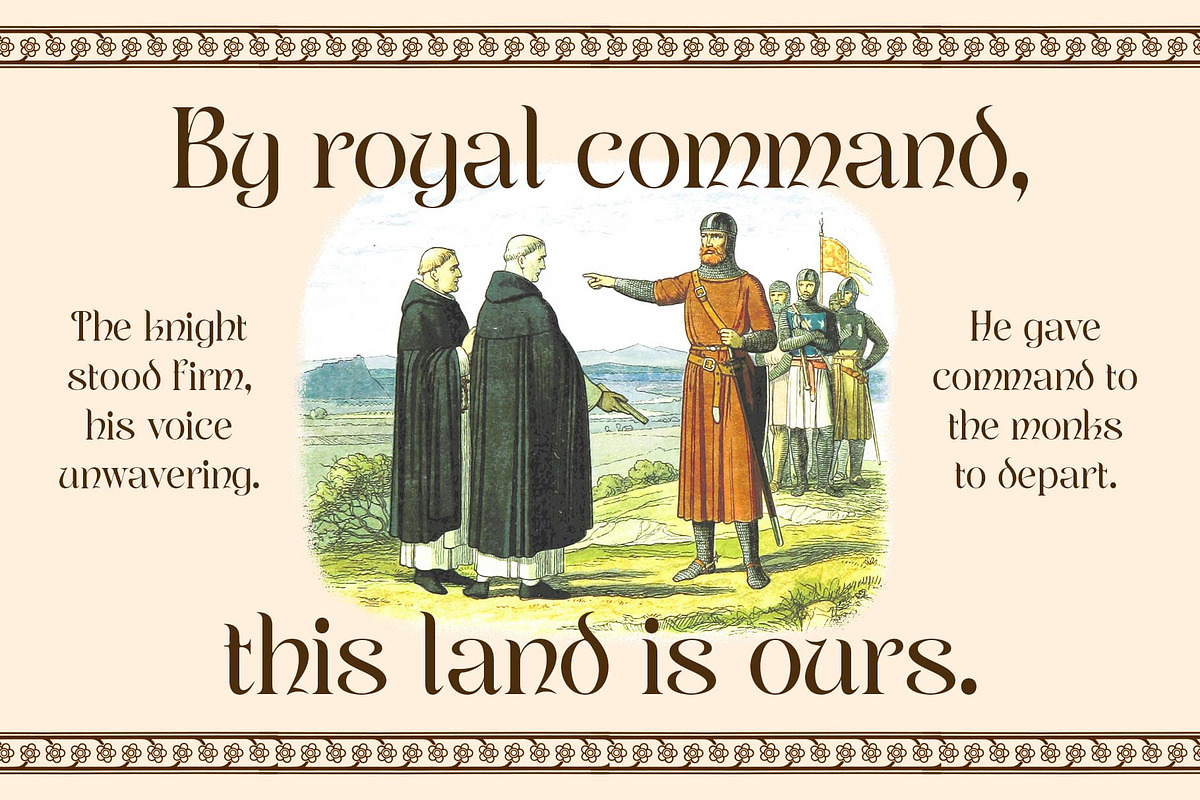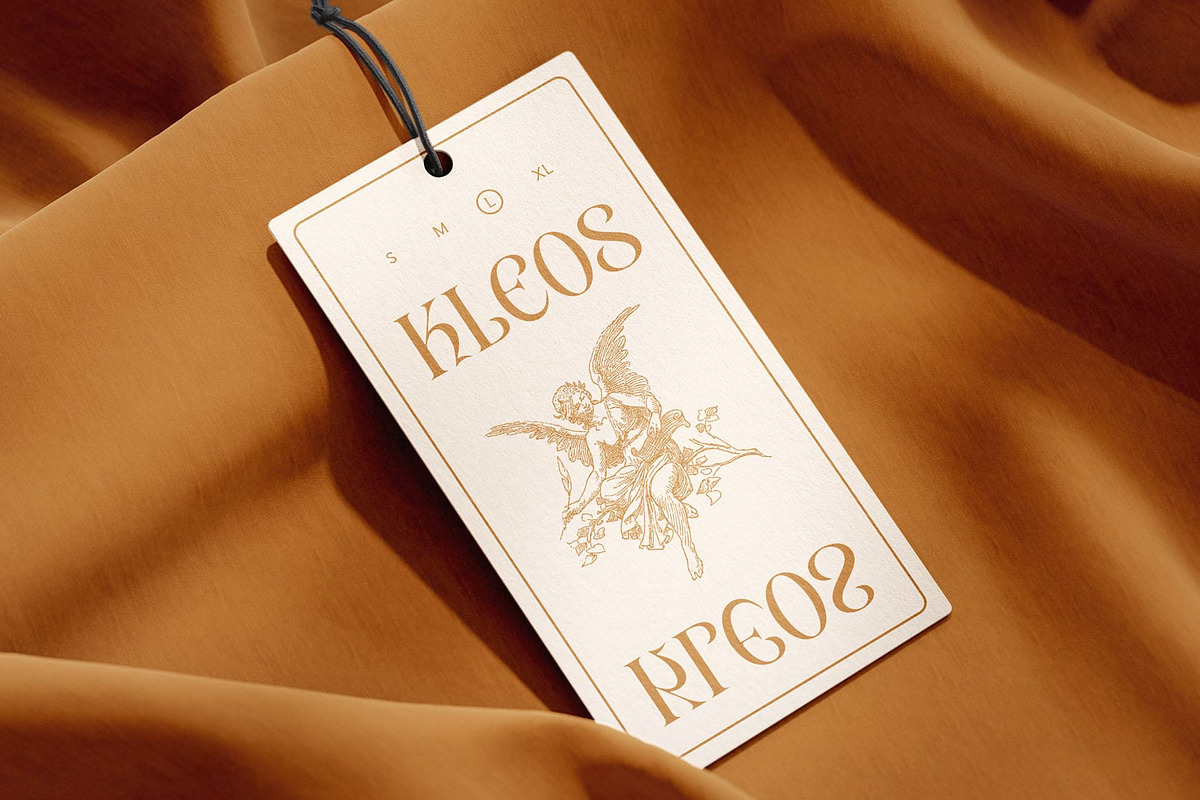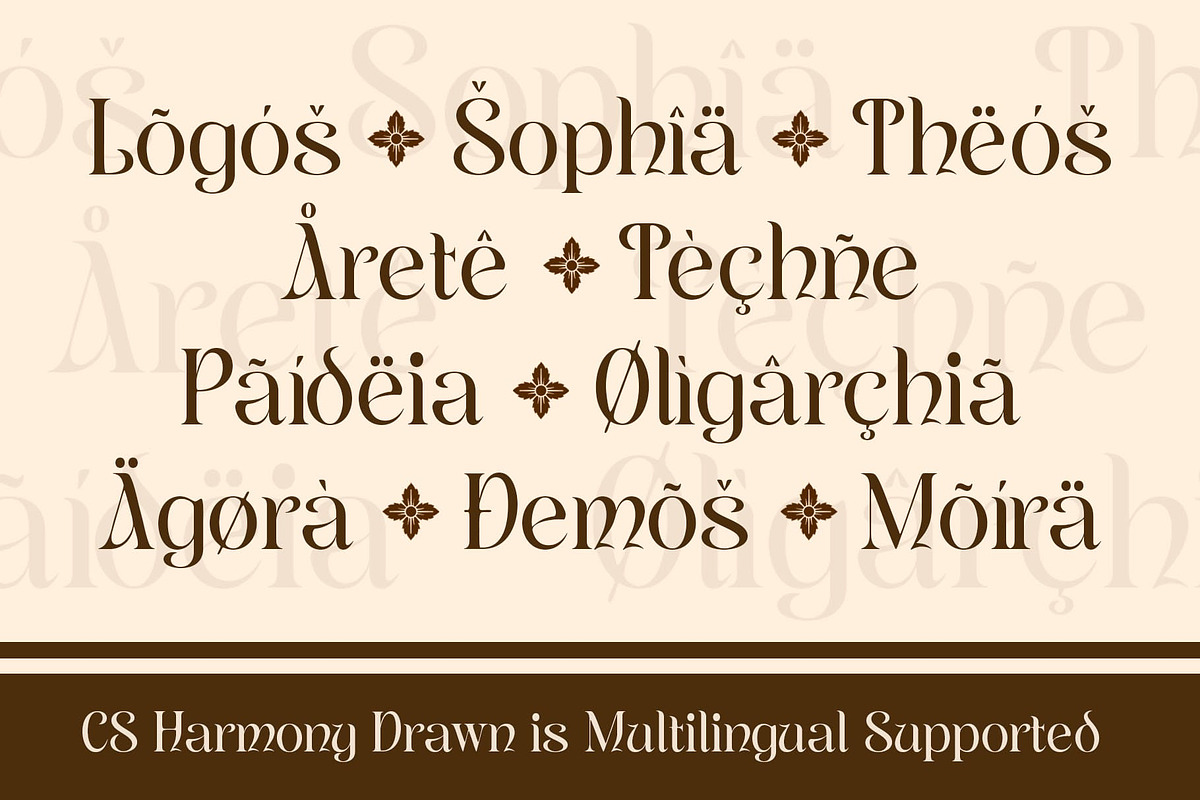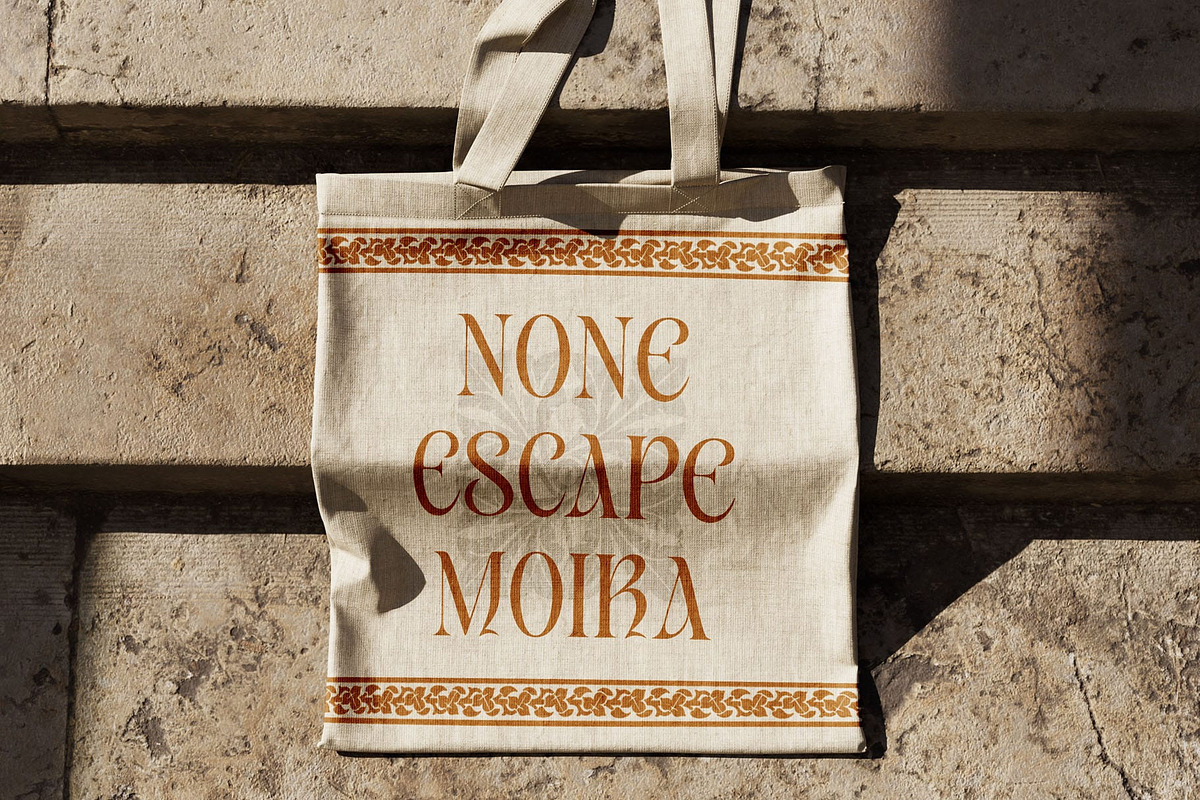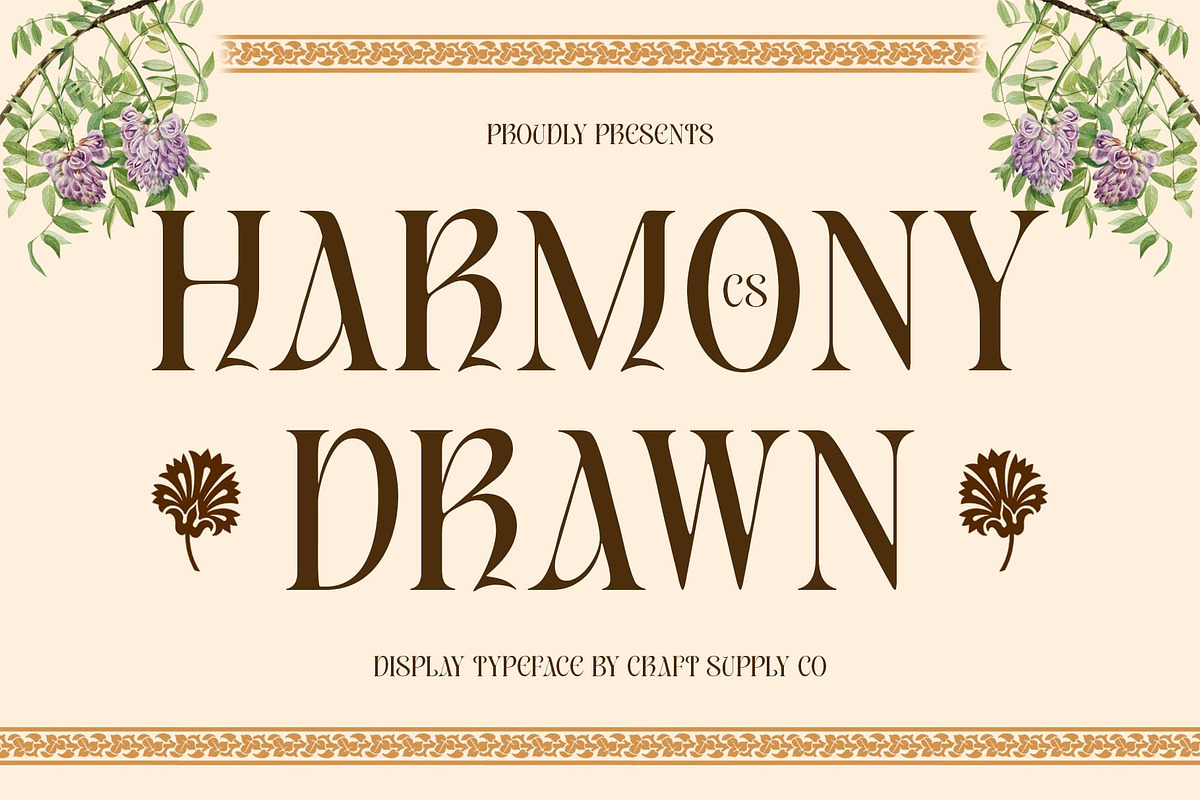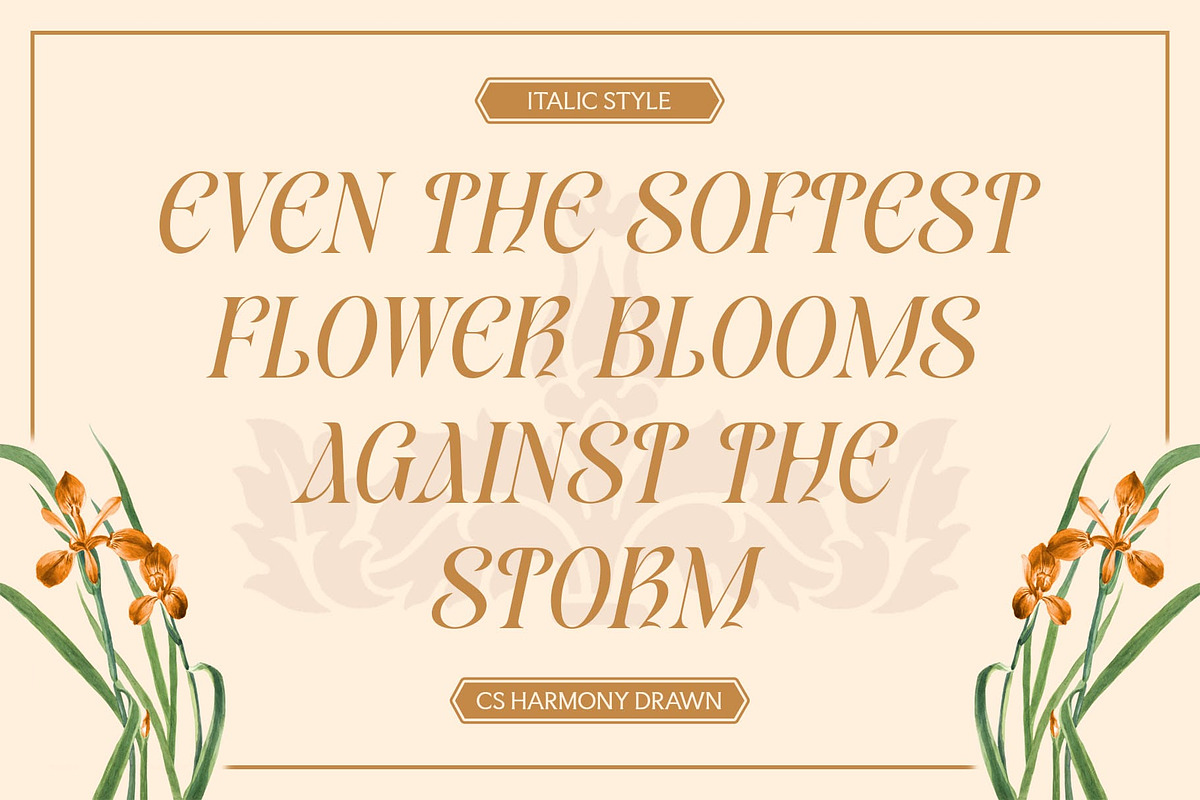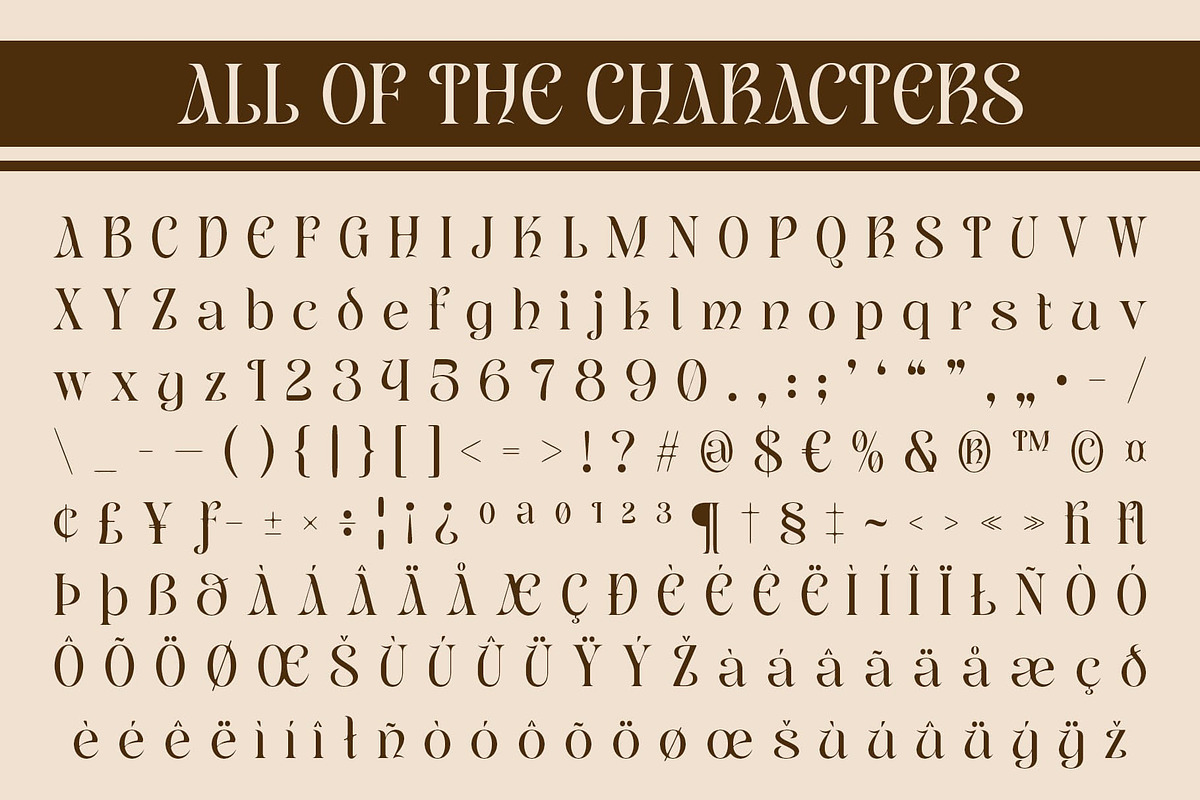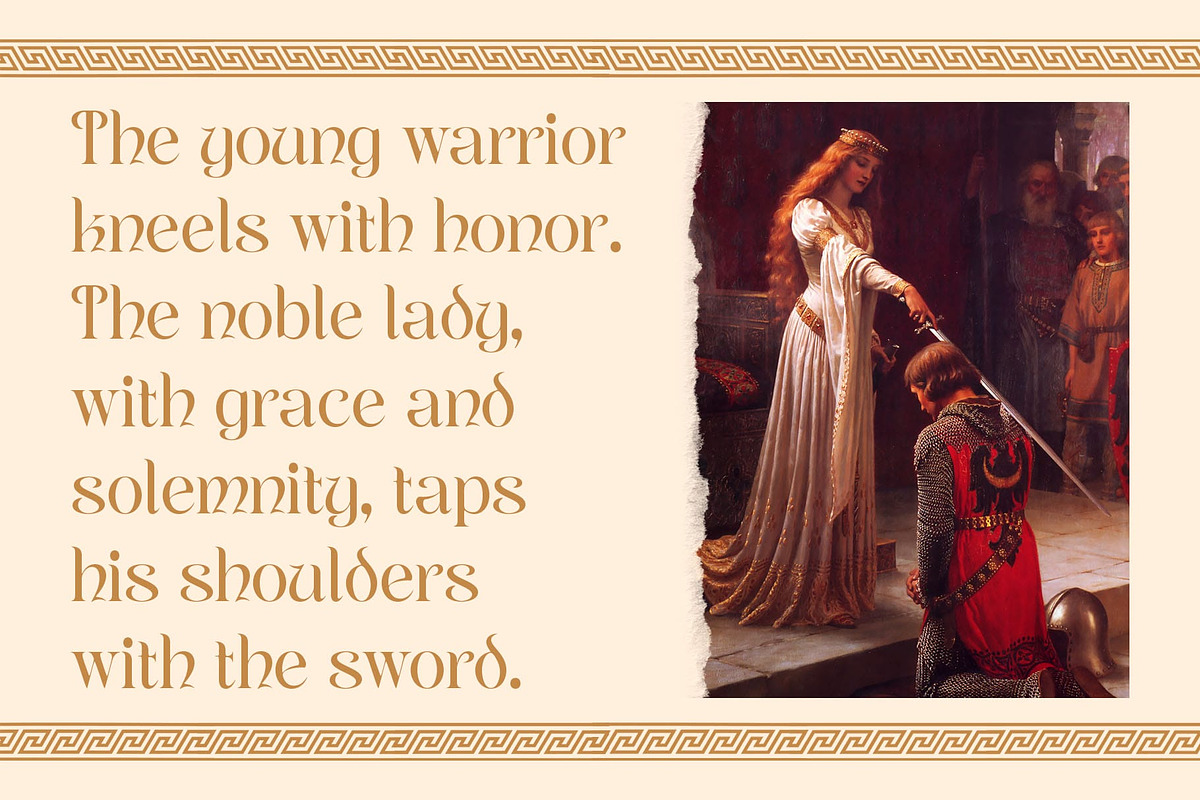
CS Harmony Drawn
CS Harmony Drawn: Classic Elegance with Artistic Expression
Display Serif with Modern Uncial Style CS Harmony Drawn is a display serif font inspired by modern uncial forms, featuring soft curves and rounded letterforms that create a graceful, flowing appearance. This unique letter structure adds a timeless yet contemporary charm, setting it apart in any sophisticated design.
Elegant Proportions with Harmonious Flow Crafted with careful attention to balance and proportion, this uncial modern font offers a refined visual rhythm. Its rounded shapes and soft serifs evoke a sense of elegance and poise, making it a perfect choice for projects that aim to exude style and sophistication.
Drawn Effect for Artistic Character Infused with a subtle drawn effect, this font brings a handcrafted, artistic quality to its refined design. The texture adds warmth and individuality, enhancing the font’s graceful curves with a touch of authenticity. A subtle drawn texture overlays the refined forms, giving the font a tactile, handcrafted feel. This effect adds depth and artistic dimension, softening the digital edges and introducing an organic quality.
Ideal for Luxury and Creative Design From luxury branding and stylish editorials to artistic posters and packaging, this uncial modern font suits creative projects that demand a distinctive and beautiful visual identity. Its blend of classic sophistication and contemporary artistry makes it both versatile and memorable.
- CS Harmony Drawn Regular
- CS Harmony Drawn Italic